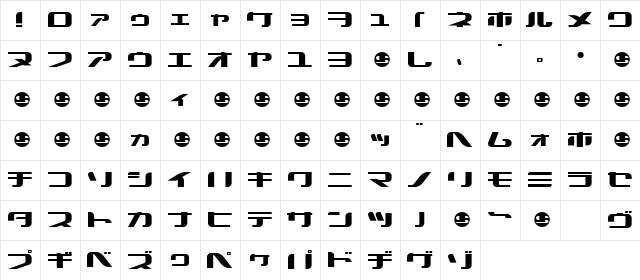
SUMMERCAMPKa Regular Font Preview
SUMMERCAMPKa Regular
SUMMERCAMPKa Regular Font Details
Design Context for SUMMERCAMPKa Typeface
SUMMERCAMPKa takes a measured approach to typography — its balanced proportions and neutral character make it a reliable workhorse for both digital and print work.